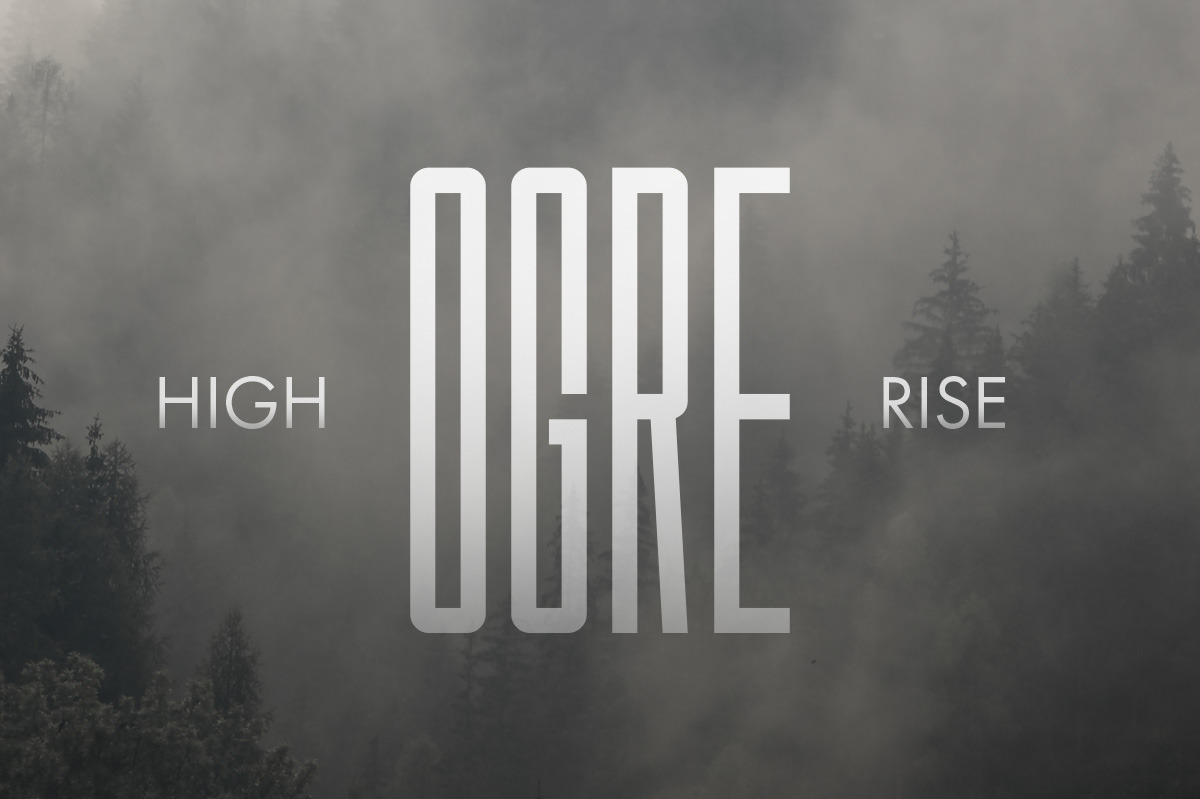
Ogre Typeface
Ogre is a tall and narrow display typeface, great for posters, big text and vertical spaces. It includes uppercase, lowercase, numerals and punctuation.
The type comes in 2 styles; regular and inline. The font has narrow kerning and works better in larger sizes.